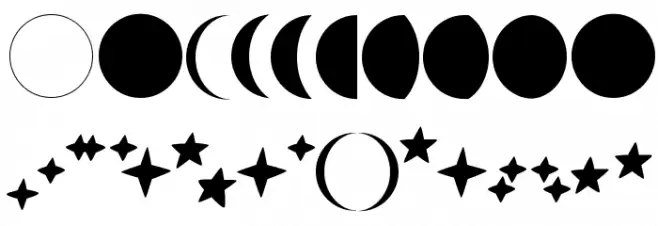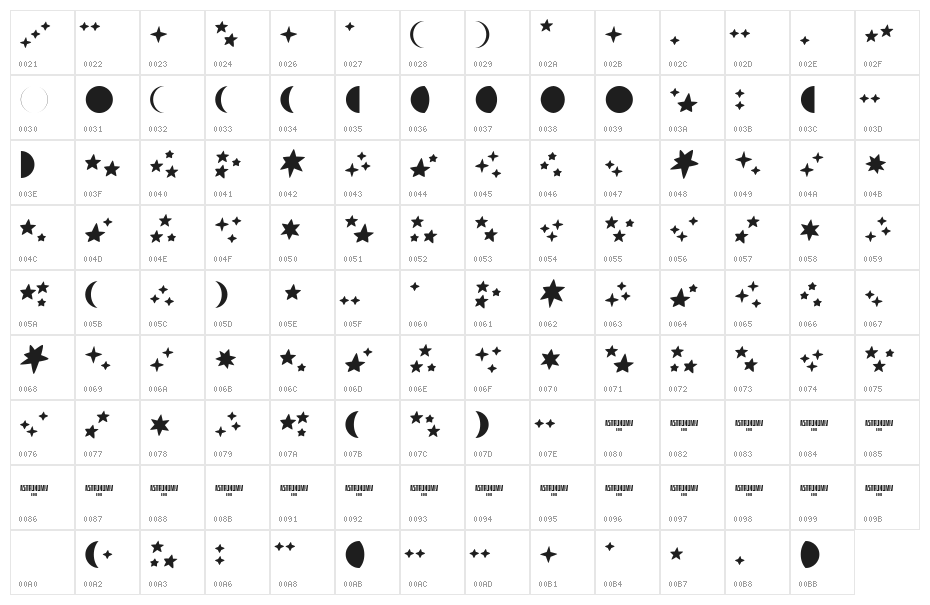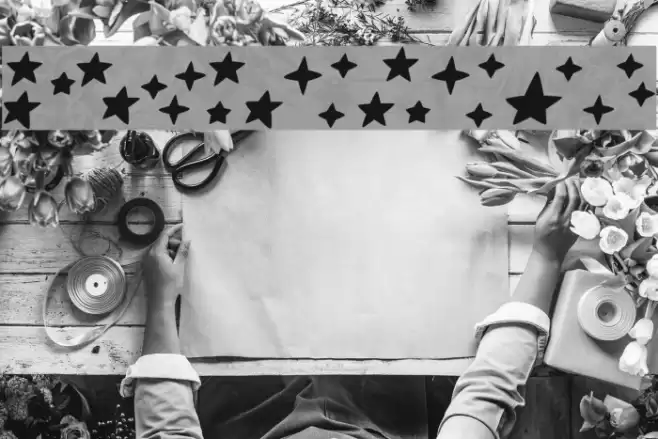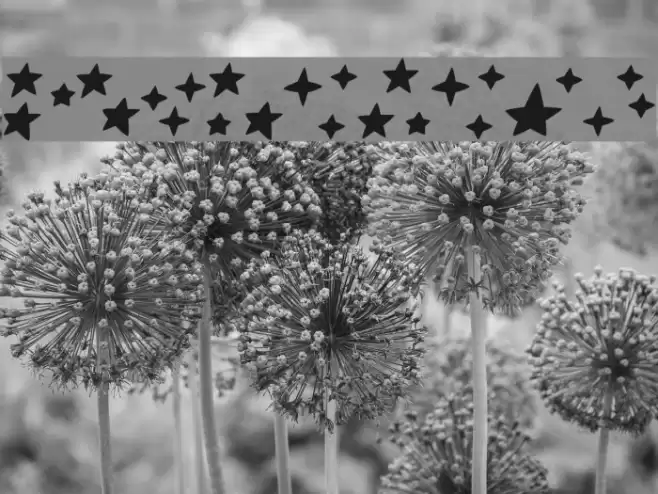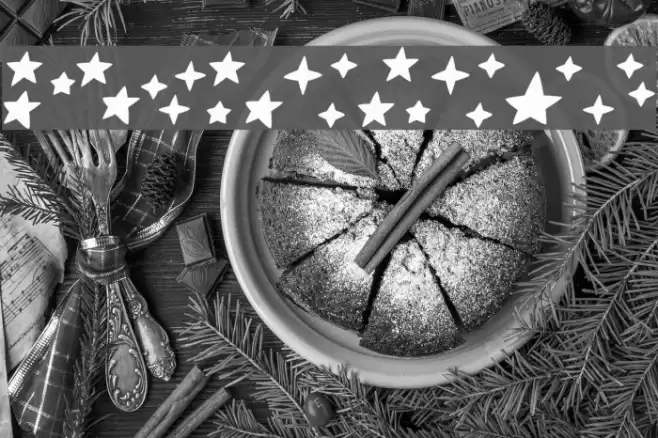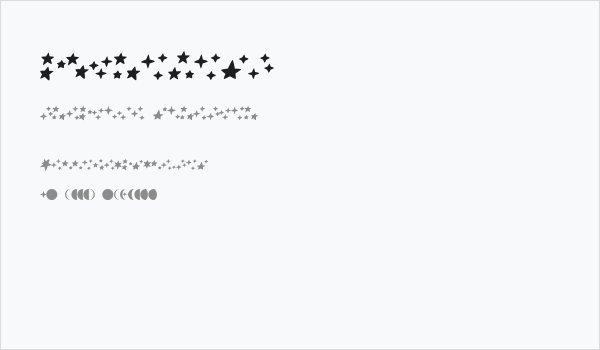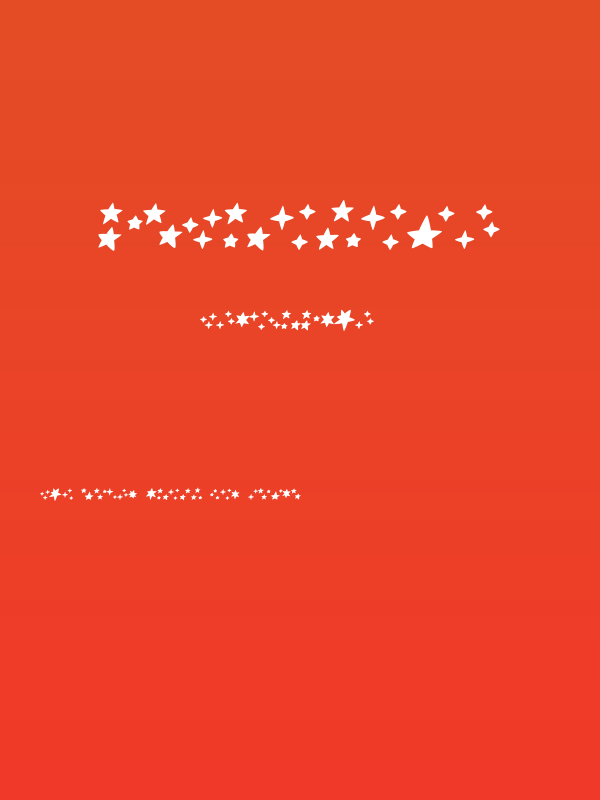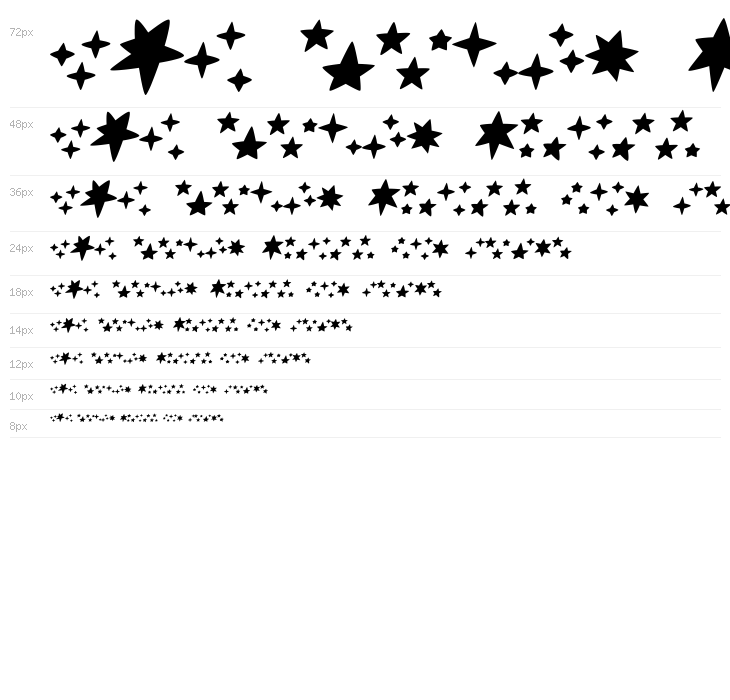
Astronomy Font
A decorative font featuring astronomy-themed glyphs, including various star shapes, moon phases, and celestial motifs. The characters are bold, filled, and highly stylized, with playful and whimsical arrangements.
Overall StyleDecorative, Whimsical, Playful
Use CaseHeadlines, Decorative borders, Themed graphics
Proposed ProjectsChildrenÒ€ℒs books, party invitations, science posters, educational materials, themed event graphics.